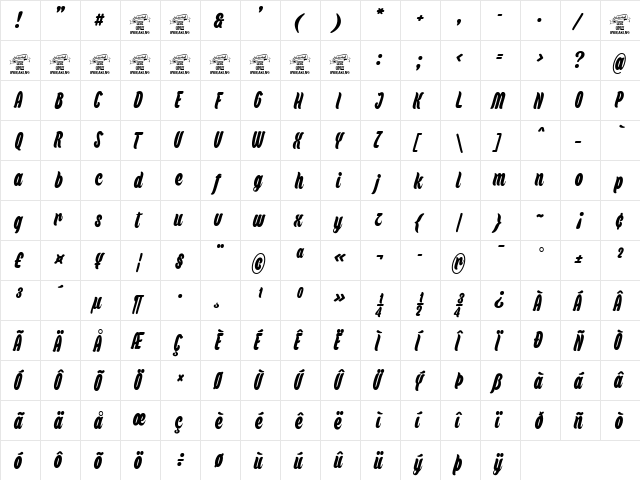
Backpack Personal Use Regular
| Designer | M害 Greb䣫 |
Design Context for Backpack Personal Use Typeface
Backpack Personal Use is a composed and adaptable typeface that performs quietly and consistently across a wide range of design contexts.